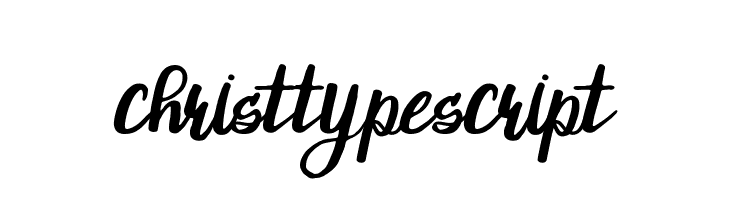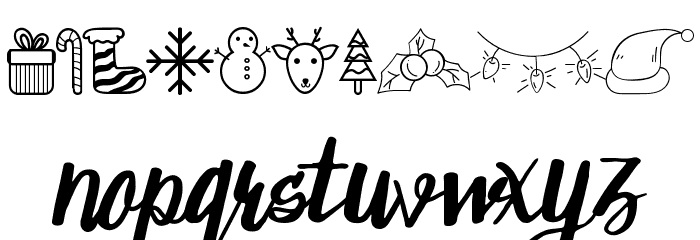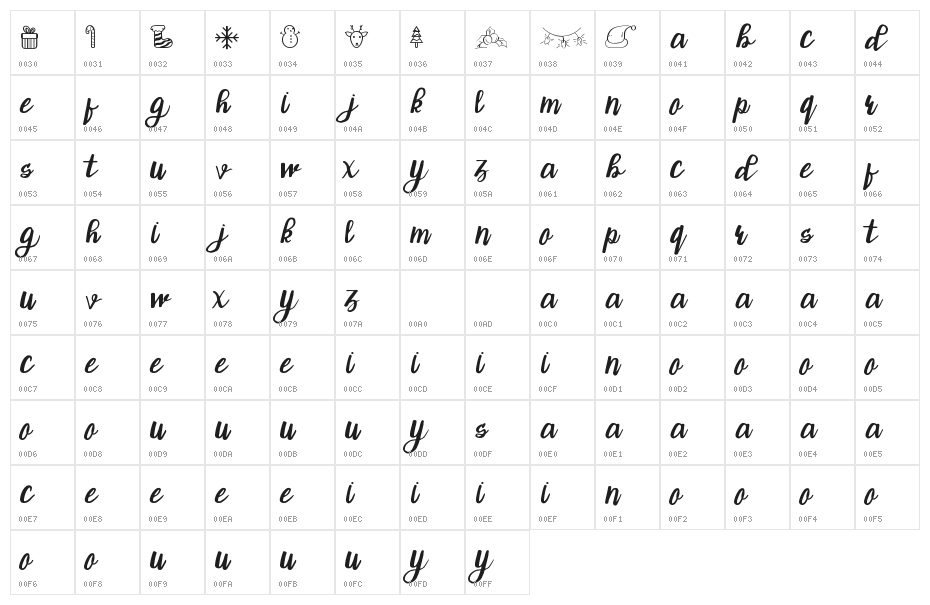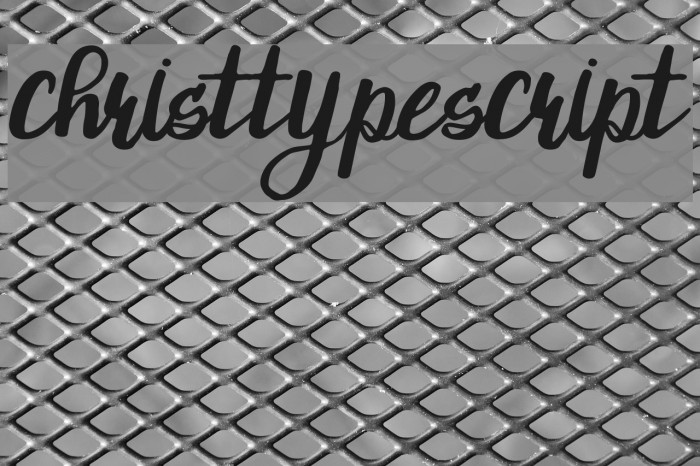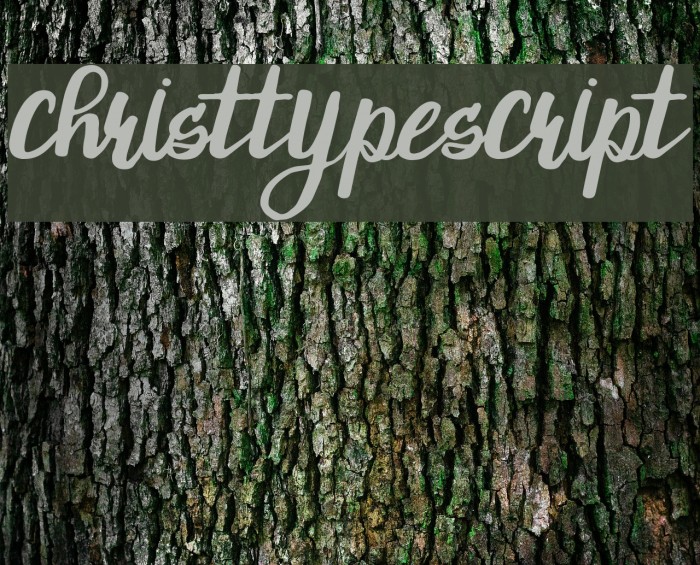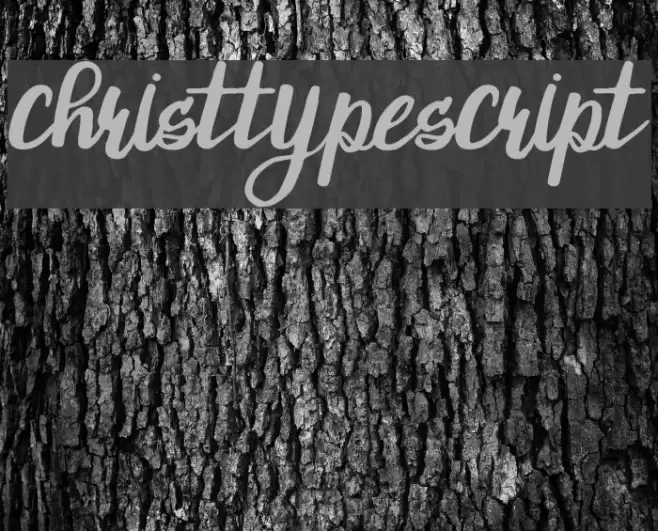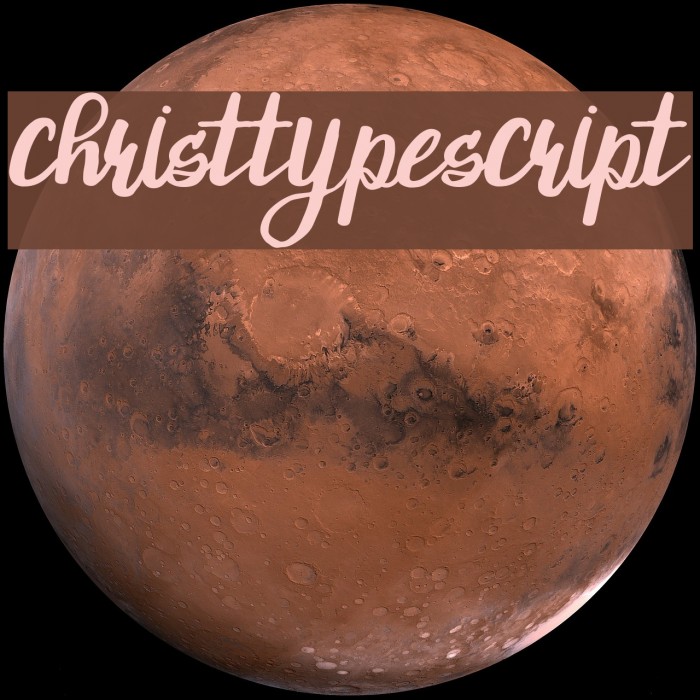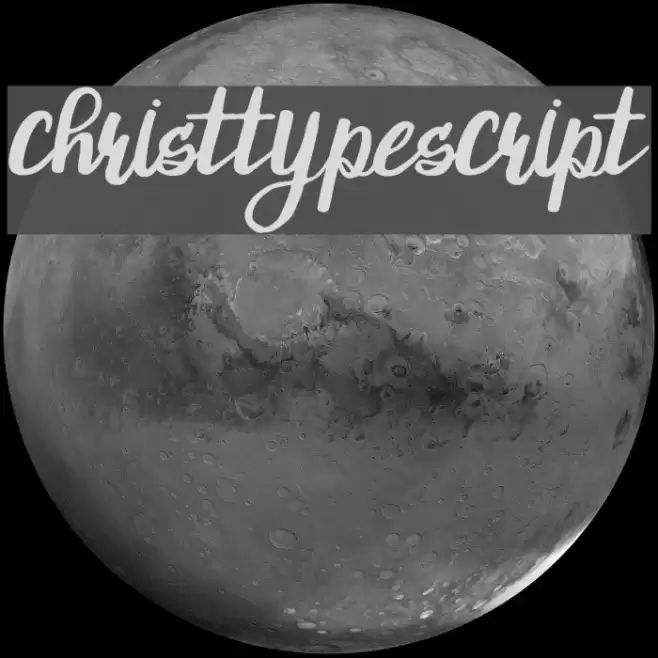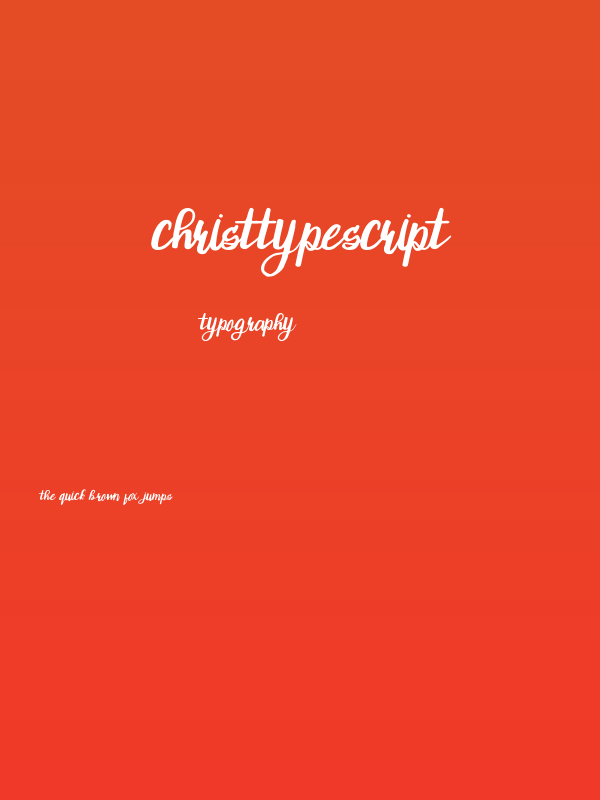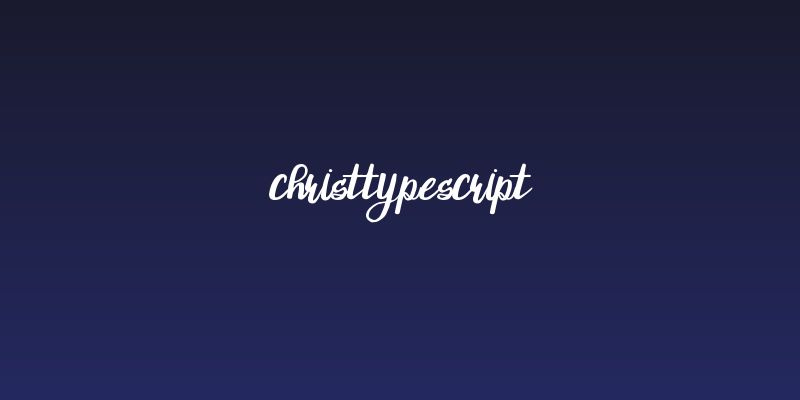
ChristTypeScript Font
ChristTypeScript Description
This font features a playful and festive script style, characterized by its flowing, cursive letters that mimic a handwritten aesthetic. The strokes are bold and confident, with a slight slant that adds to the dynamic and lively appearance. The uppercase and lowercase letters are well-balanced, maintaining a consistent rhythm throughout. The font includes charming holiday-themed icons, such as a gift, stocking, snowflake, snowman, reindeer, tree, holly, lights, and a Santa hat, which enhance its seasonal appeal. The overall design is both whimsical and elegant, making it suitable for a variety of creative projects.